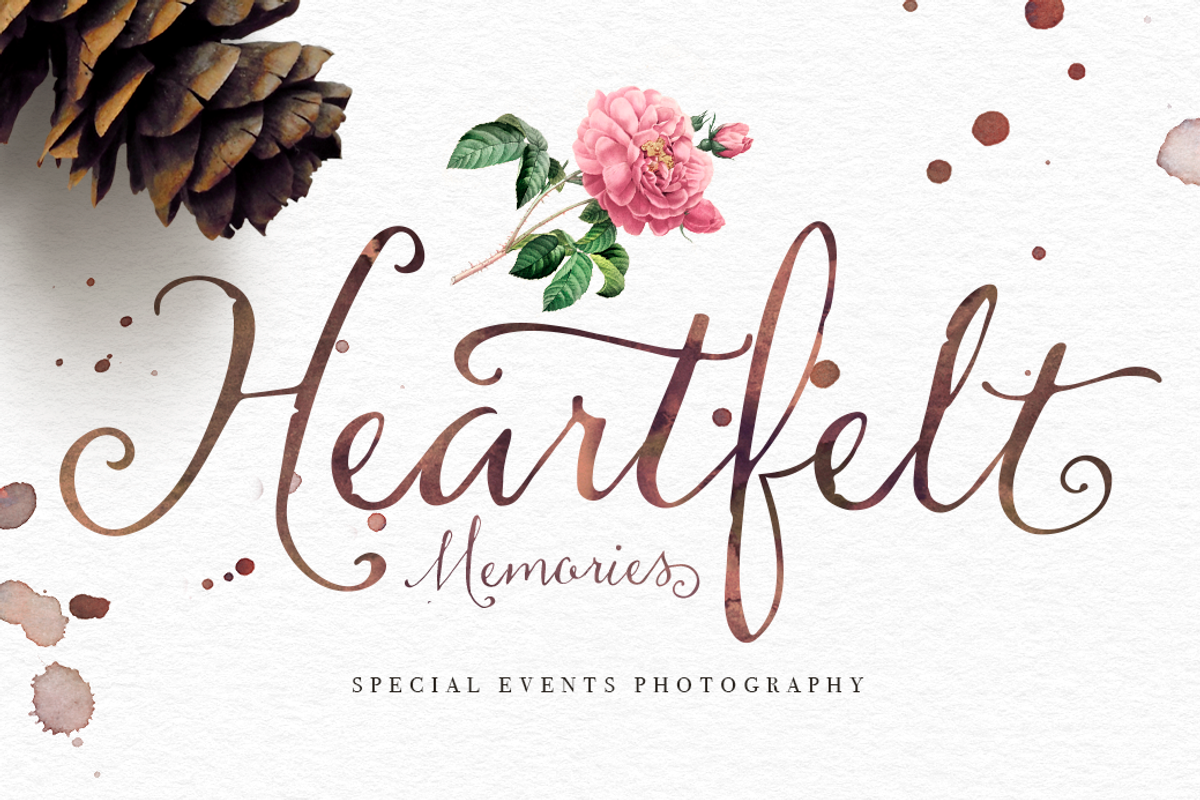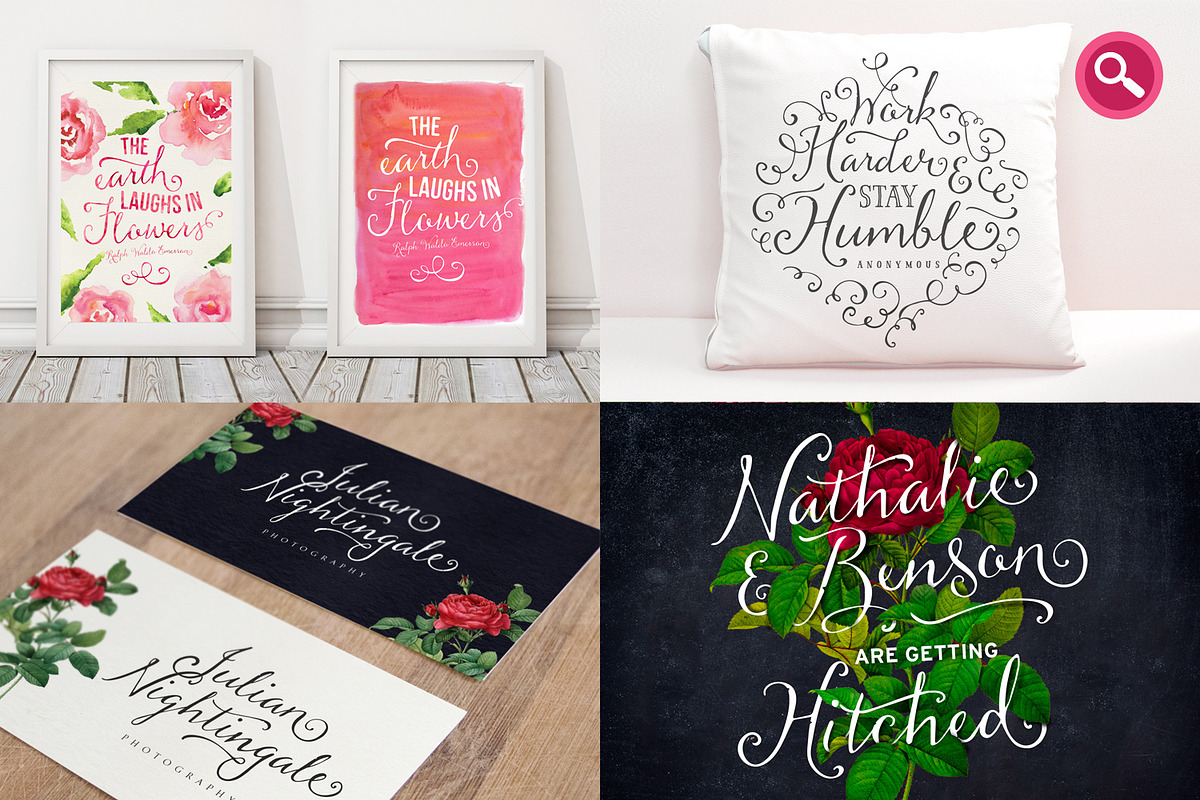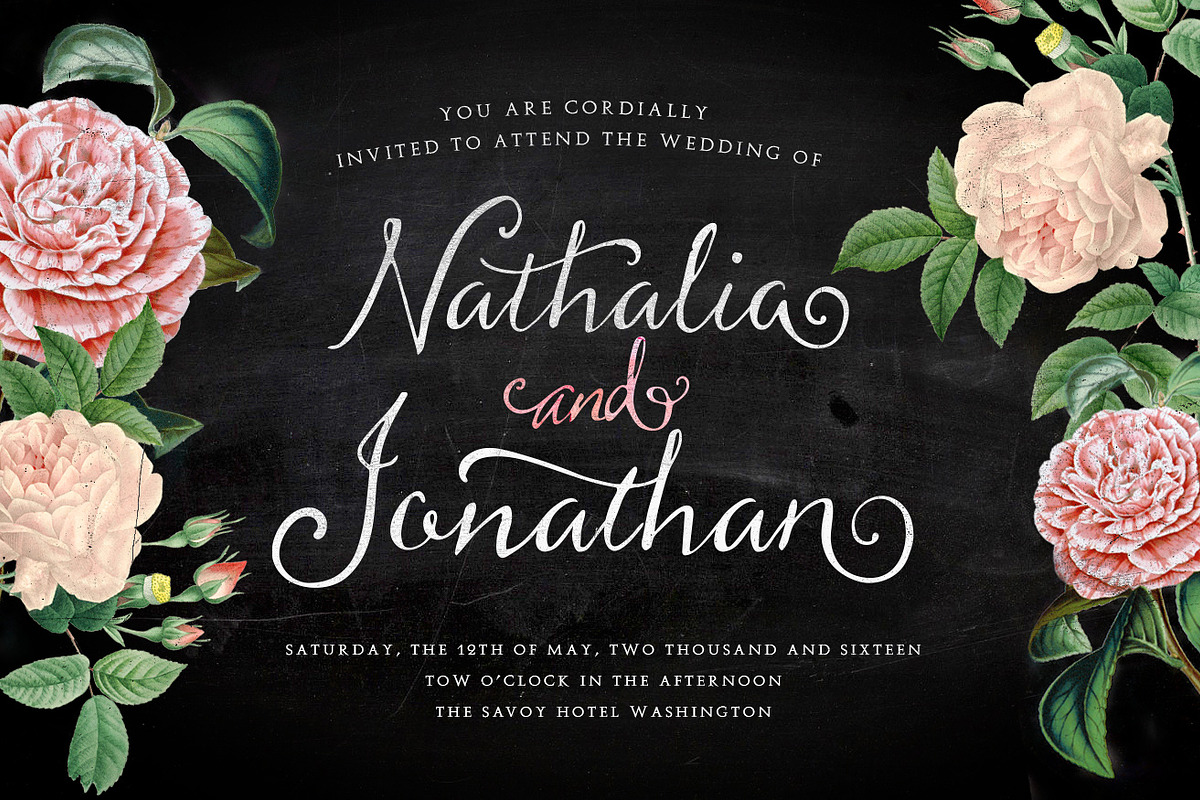
Say hello to Butterscotch! This font is so incredibly versatile and adventurous, I had so much fun using it in action, and making the previews for it, I couldn’t stop – so I’m left with a growing collection of examples for you to look over anytime you need inspiration on what you can do with it!